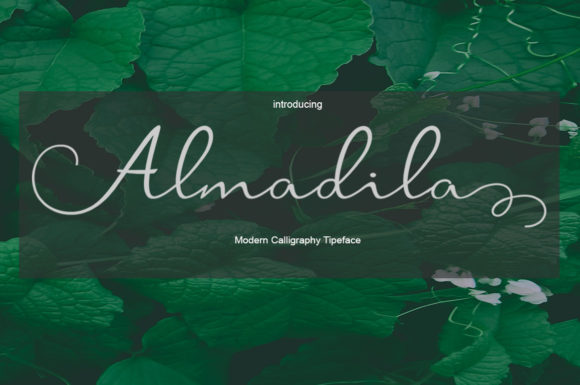
The Almadila Font: A Timeless Addition to Your Design Arsenal
Ah, the elusive perfect font. You know, that one design project where everything comes together seamlessly, and the typography is the star of the show. I recall working on a branding project for a boutique coffee shop, where the client wanted a font that exuded warmth, sophistication, and playfulness. After hours of scouring font libraries and testing various combinations, I stumbled upon Almadila – a hidden gem that instantly elevated the entire design. In this article, we’ll dive into what makes Almadila special, its strengths and quirks, and how to make the most of this beautiful handwritten font.
An Honest Review of Almadila
What I Love About Almadila ✨
- 💫 Unique yet classic feel: Almadila strikes a perfect balance between timeless elegance and modern flair, making it suitable for a wide range of design projects.
- ✅ Versatility: This font shines in headlines, body text, and everything in between. Its adaptability makes it a valuable addition to any designer’s toolkit.
- 📝 Excellent for long-form content: Almadila’s readability and flowing script make it an excellent choice for blocks of text, from blog posts to product descriptions.
While Almadila is an exceptional font, it’s not without its limitations. Here are a few things to consider:
- 🤔 Legibility at small sizes: Like many script fonts, Almadila can become tricky to read at very small sizes (below 10pt). Be mindful of this when designing for mobile or print materials.
- ⚠️ Glyph limitations: While Almadila offers a range of OpenType features, it might not have every special character or glyph you need. Double-check the font’s capabilities before committing to a project.
The Story Behind Almadila
Almadila’s story begins with a passion for typography and a desire to create something unique. While the font’s actual origins are unclear, it’s said that the designer drew inspiration from classic typography and a love for handwritten scripts. The result is a font that’s both timeless and modern – perfect for designers looking to add a touch of elegance to their work.
Q: What type of projects is Almadila best suited for?
Almadila is an incredibly versatile font, making it suitable for a wide range of projects, from branding and advertising to web design and print materials.
Q: Is Almadila suitable for body text?
While Almadila is primarily designed for headlines and titles, it can be used for body text in certain contexts. However, keep in mind that the font’s legibility may decrease at smaller sizes.